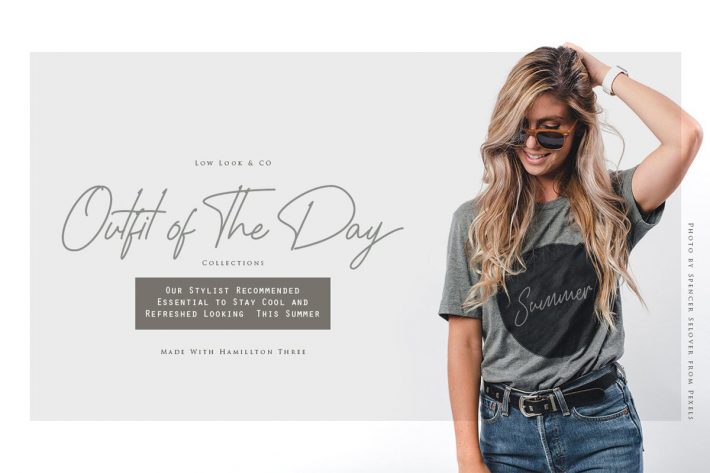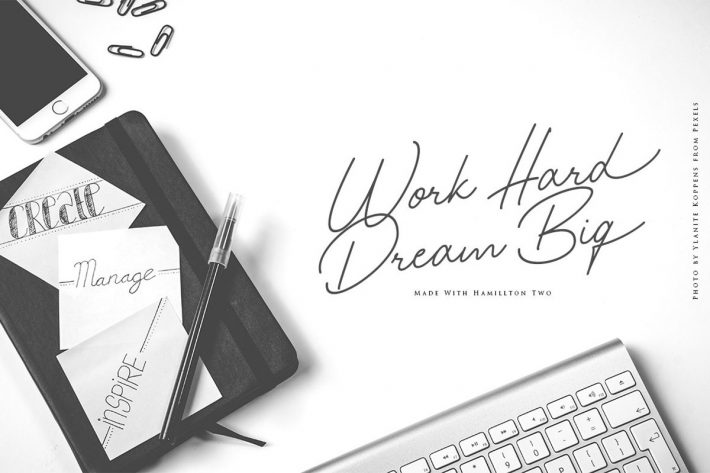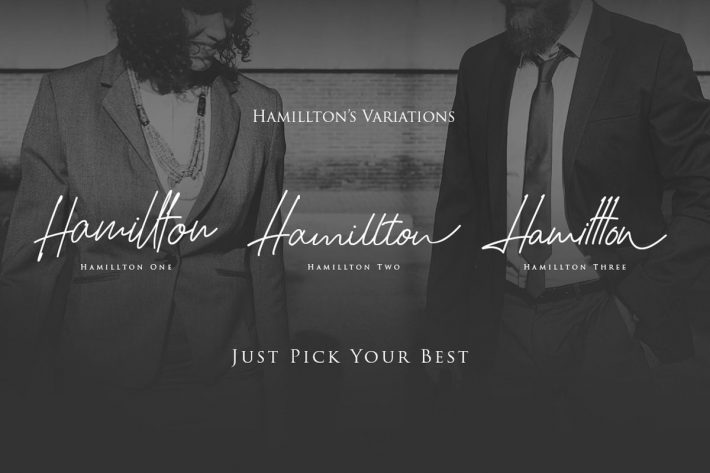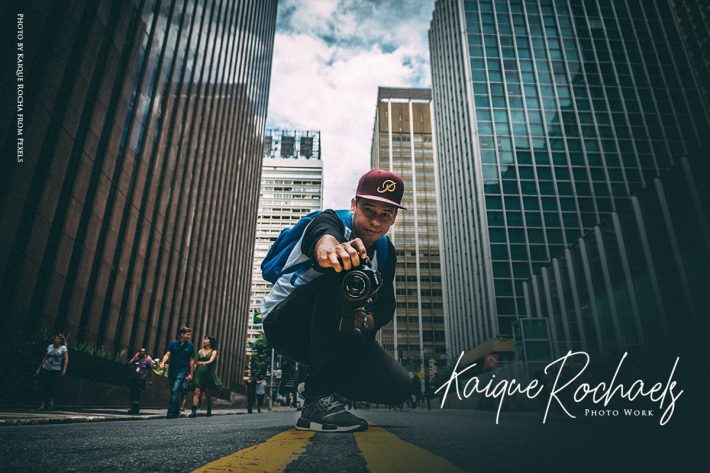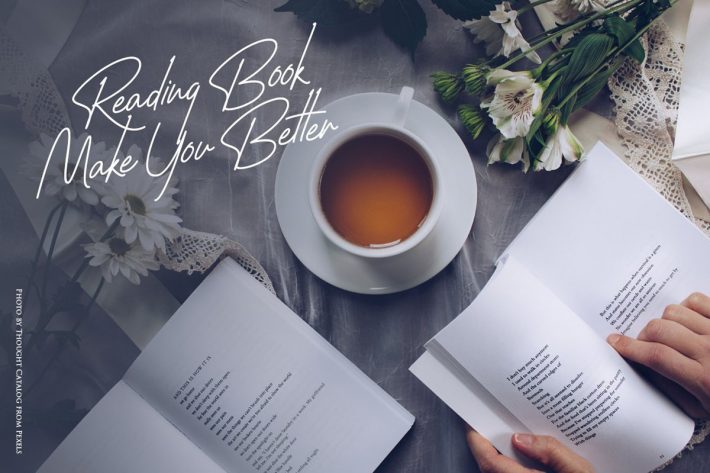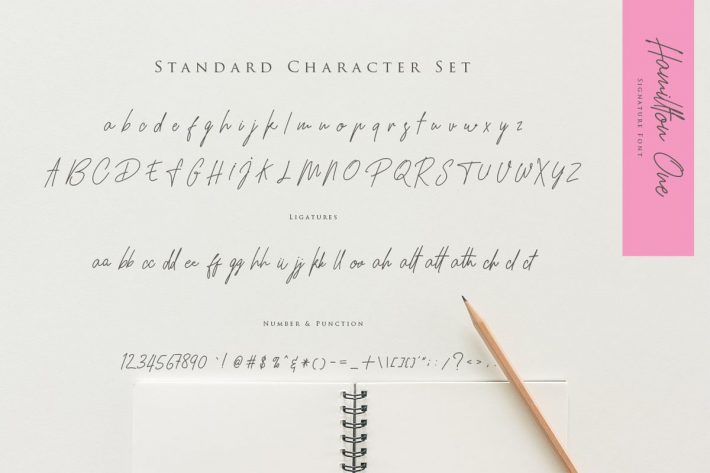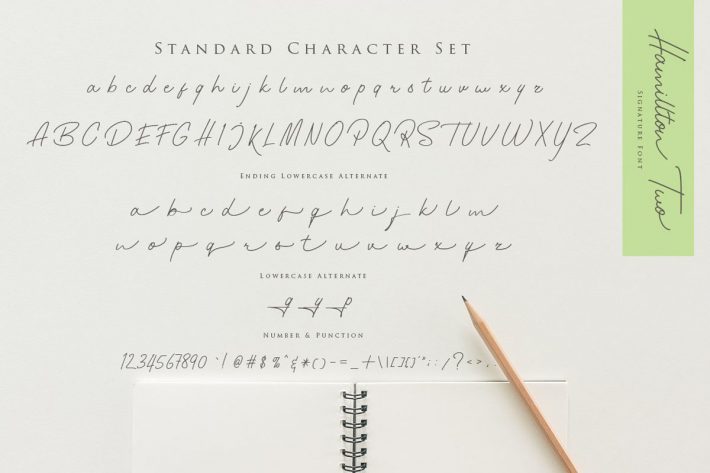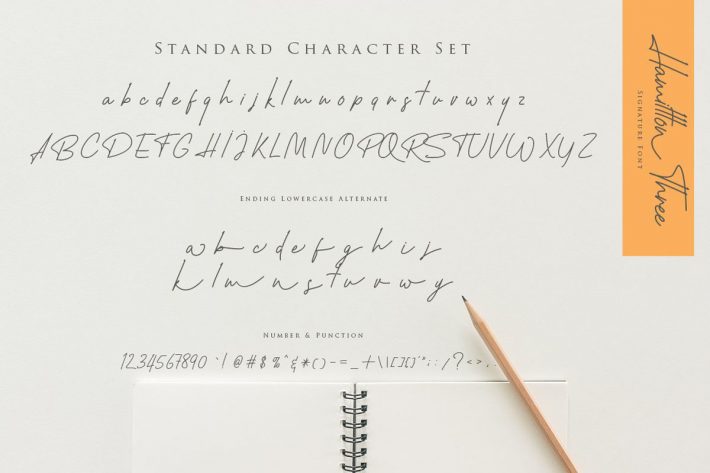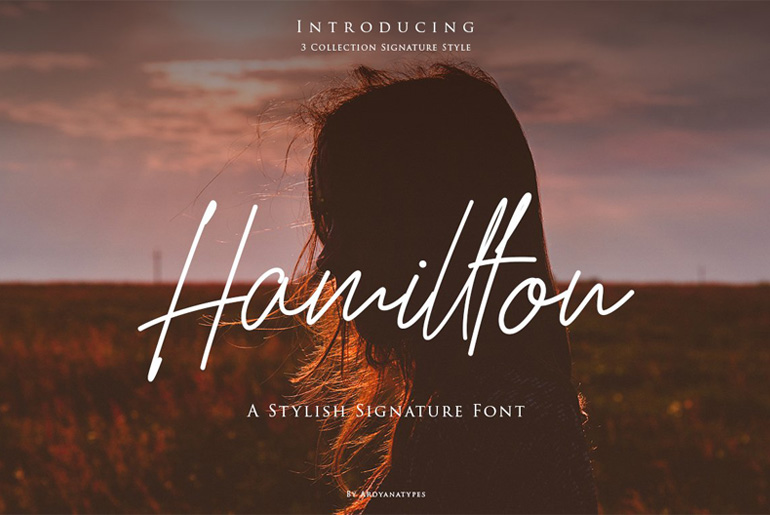
Hamillton Signature Font – Free Script Font Download
Hamillton Signature font is created by Ardyana Types. This typeface is made with classy, simple and sophisticated handwriting along with having 3 variants.
Each variant has a diverse type which is equipped with alternative open-type features, initial and final forms, ligatures.
Hamillton font is the better option to use for signature, watermarks on photography, logo design, quotes, album covers, business cards and other design projects.
This typeface is what to make your designs more beautiful, outstanding and elegant.
Hamillton Signature font